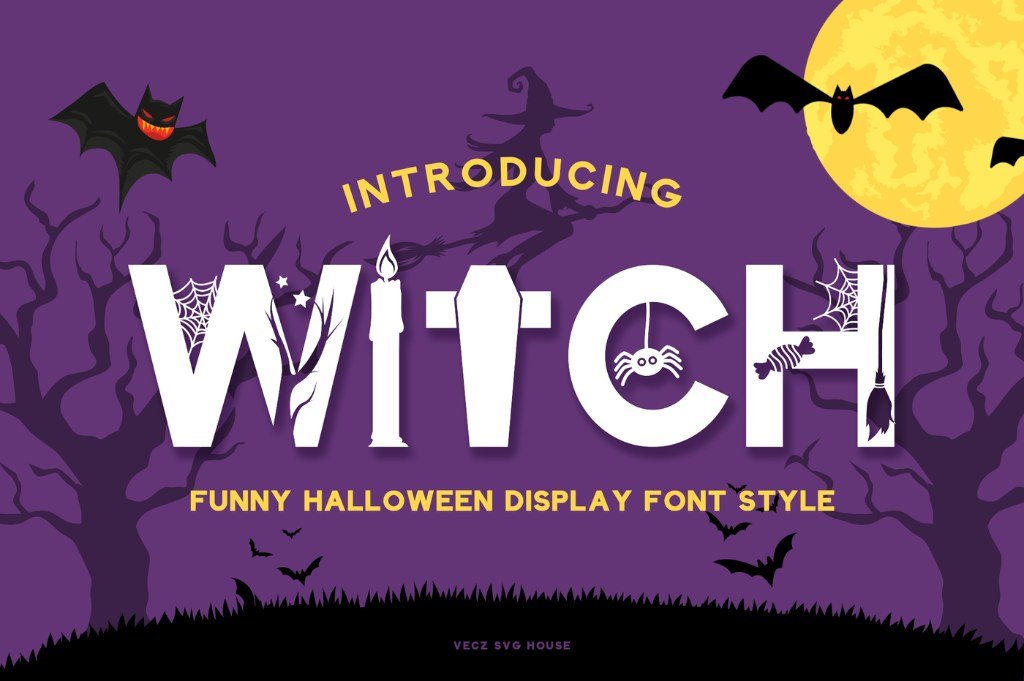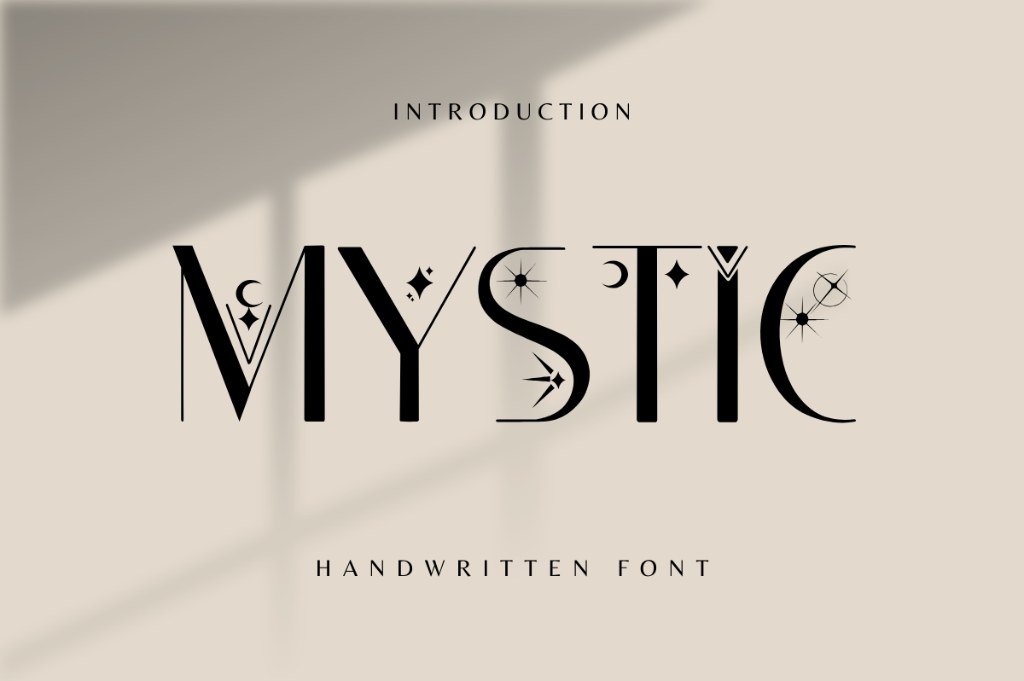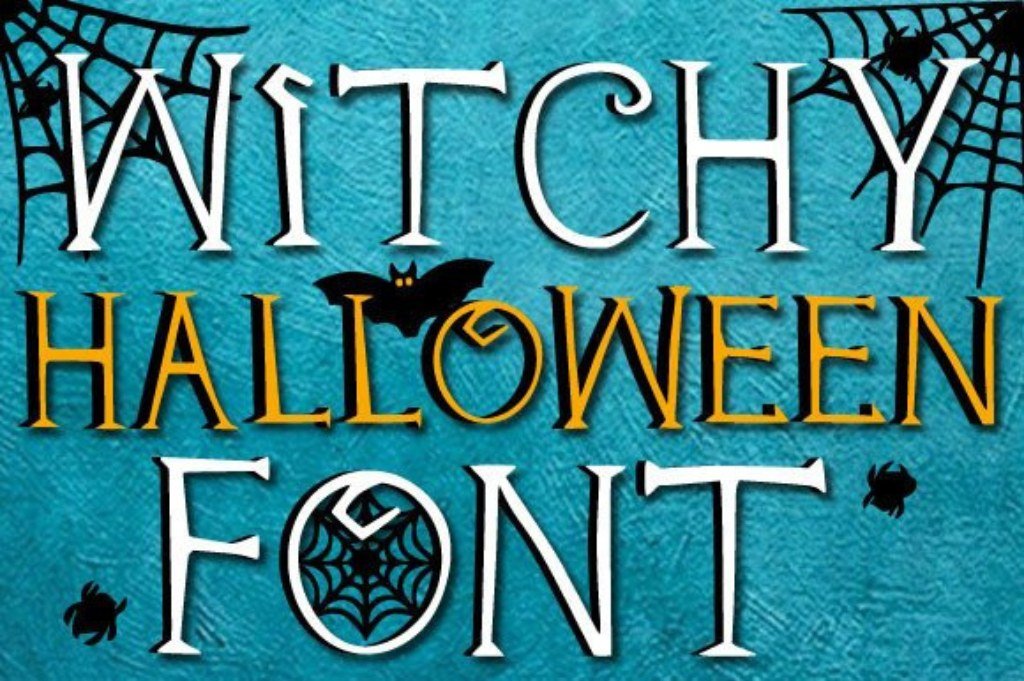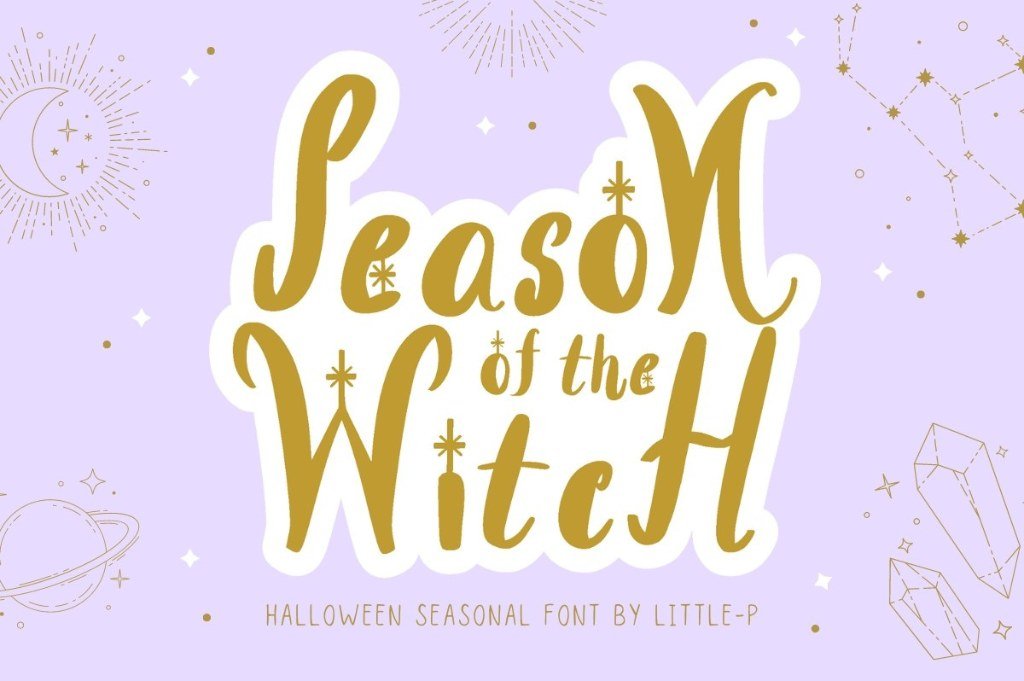
Witchy fonts can instantly give a design a magical, mysterious, gothic, celestial, or playfully spooky personality. And the best witch-inspired typefaces are useful for much more than Halloween: they can work beautifully on Cricut shirts, tarot cards, potion labels, candles, invitations, book covers, stickers, signs, and mystical branding.
For this collection, we selected 21 of the best witchy fonts across spooky, cute, gothic, celestial, handwritten, and magical styles. If you want one versatile place to start, Witch Night is our best overall pick. Tarot stands out for celestial designs, while Whitcher is our favorite for a darker gothic look.
Quick Picks: Best Witchy Fonts at a Glance
Six standout choices if you want to jump straight to the strongest styles.
Best Overall: Witch Night — a playful script and dingbat combination for Halloween crafts and Cricut projects.
Best Spooky: Halloween Witch by Mas Anis — a bold vintage-style display font for posters and Halloween graphics.
Best Celestial: Tarot by Nongyao — decorative lettering with stars and moon details for tarot and mystical designs.
Best Cute: Witch by Rasa — quirky, friendly lettering for playful Halloween crafts and shirts.
Best Gothic: Whitcher — dramatic blackletter for spellbooks, dark fantasy, and gothic witch designs.
Best Scary/Horror: Scary Witch by Dreamink (7ntypes) — a bold wavy horror display font for Halloween shirts, posters, and spooky Cricut projects.
21 Best Witchy Fonts for Magical & Halloween Designs
1. Witch Night — Best Overall Witchy Font
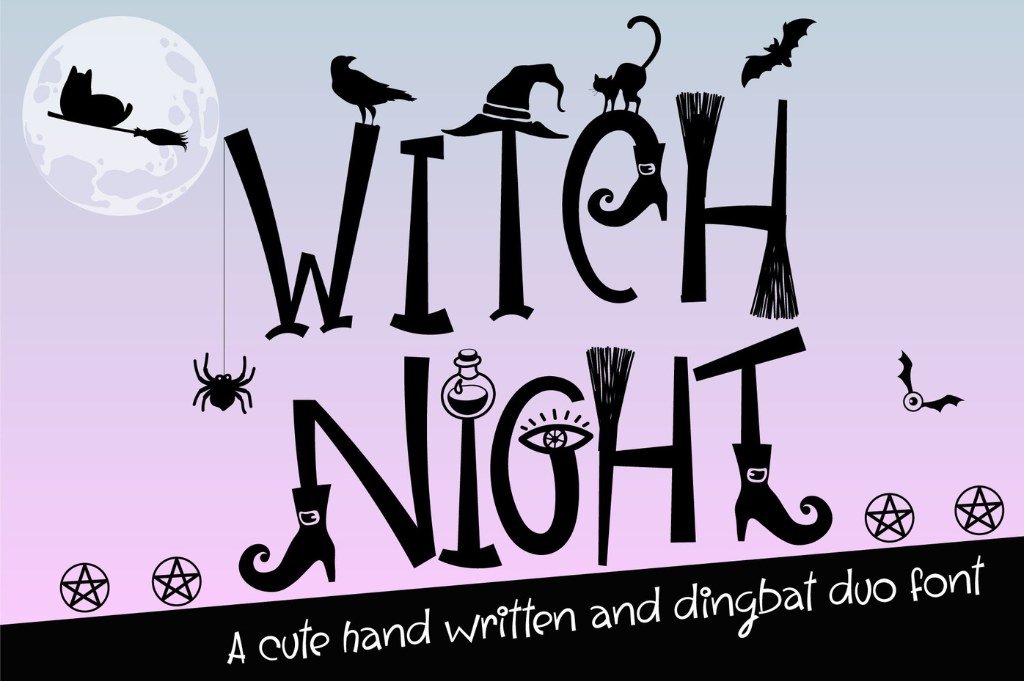
✨ Best for
Cricut shirts, Halloween crafts, mugs, signs, spooky quotes, and playful witch designs.
Witch Night is our best overall witchy font because it gives you more than a single lettering style. The package combines quirky handwritten lettering with matching Halloween-themed decorative elements, making it easy to build a complete design without searching for separate graphics.
Its personality sits comfortably between cute and spooky rather than full horror, which makes it especially useful for family-friendly Halloween projects. Try it on shirts, mugs, tote bags, party signs, stickers, and seasonal Cricut crafts.
2. Halloween Witch by Mas Anis — Best Spooky Witch Font
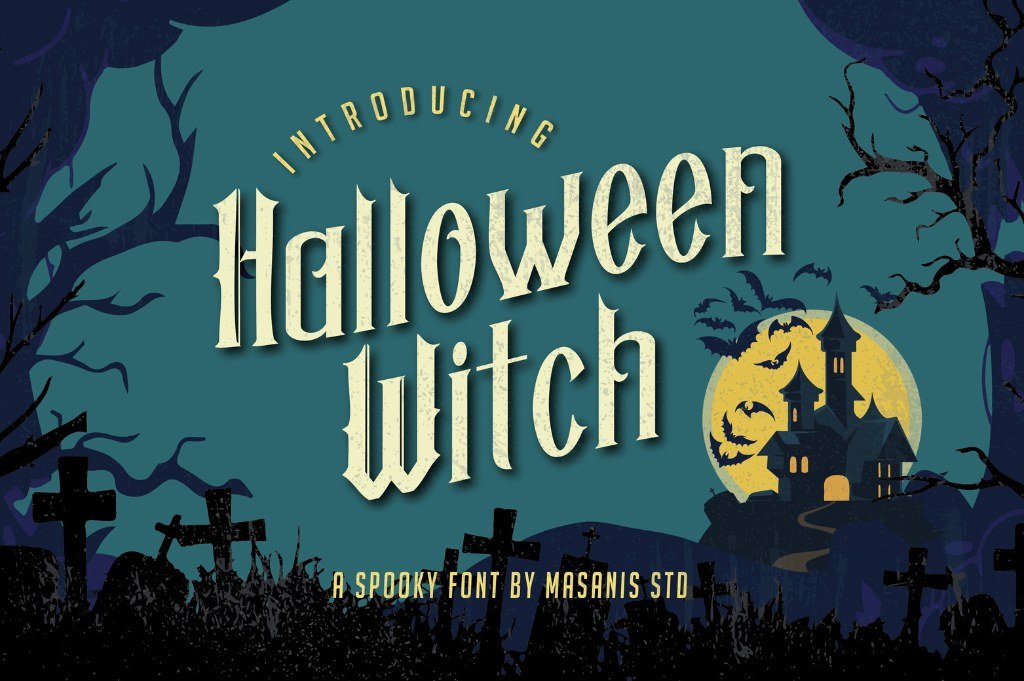
✨ Best for
vintage Halloween posters, invitations, spooky signs, shirts, and seasonal graphics.
Halloween Witch is a stronger choice when your project needs an unmistakably spooky personality. Its dramatic display forms work best at larger sizes, where the letter shapes can become the focal point of the composition.
I would use this one for Halloween party posters, invitation headlines, haunted-house signage, shirt designs, or any project where a simple handwritten font would feel too soft. Pair it with a clean sans serif for smaller supporting text.
3. Tarot by Nongyao — Best Celestial Witchy Font
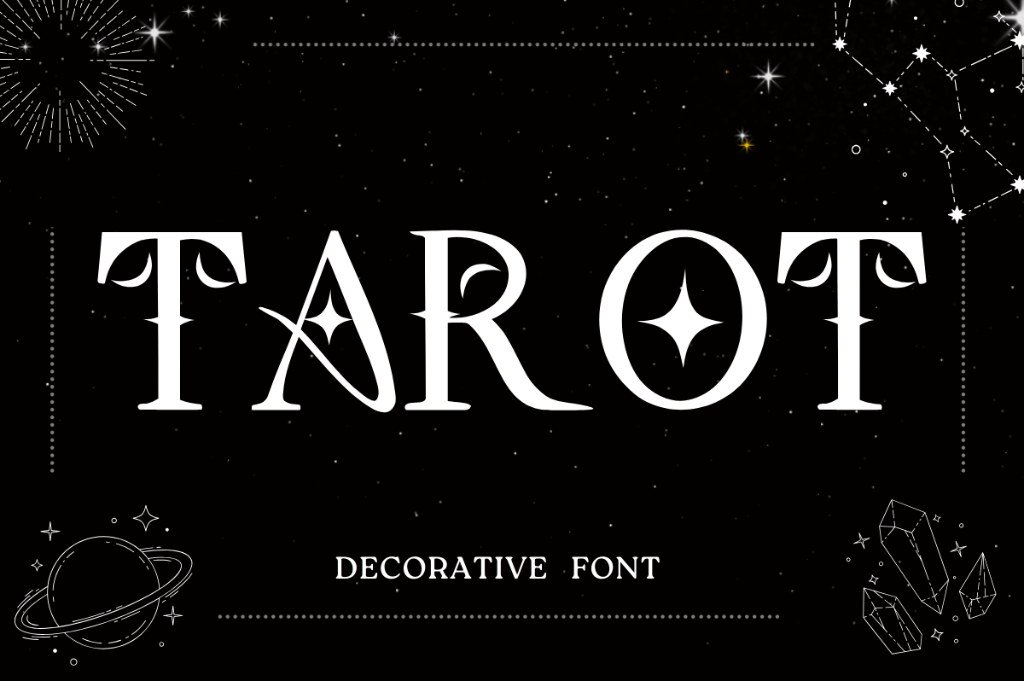
✨ Best for
tarot cards, moon-themed invitations, celestial branding, mystical packaging, and magical Cricut projects.
Tarot is one of the strongest choices in this collection if your idea of “witchy” is more celestial than spooky. Decorative stars and moon-inspired details give the lettering a magical personality without relying on pumpkins, bats, or horror imagery.
That makes Tarot useful well beyond Halloween. It can work beautifully for tarot-inspired artwork, astrology graphics, candle labels, moon-themed branding, spiritual journals, and mystical social media designs.
4. Witch by Rasa — Best Cute Witchy Font
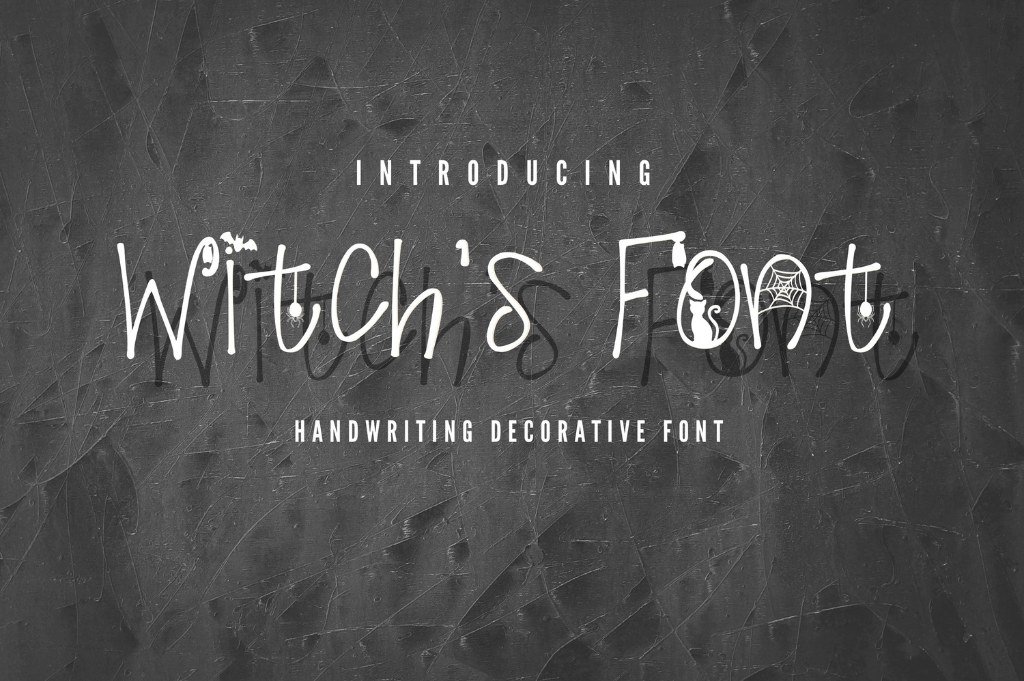
✨ Best for
kids’ Halloween crafts, stickers, cute shirts, party signs, and playful Cricut designs.
Not every witch-inspired project needs to look dark or frightening. Witch by Rasa has a quirky, slightly gloomy personality while still feeling friendly enough for playful Halloween designs.
It is a particularly good choice for children’s party graphics, cute witch shirts, stickers, classroom crafts, treat bags, and lighthearted seasonal quotes. Use simple supporting typography around it so the irregular letter shapes remain easy to read.
5. Whitcher — Best Gothic Witchy Font
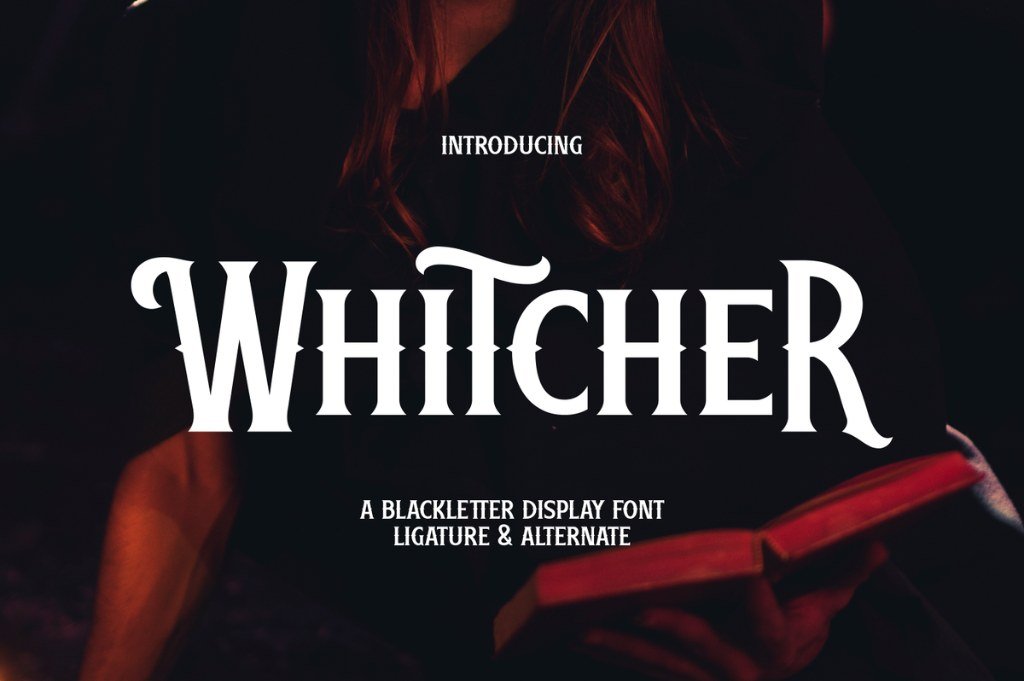
✨ Best for
spellbooks, gothic posters, fantasy covers, game titles, and dark witchcraft branding.
Whitcher is the darkest and most gothic Quick Pick in this list. Its blackletter structure creates an immediate medieval and dark-fantasy mood, making it far more dramatic than a typical seasonal Halloween font.
Use it when you want a spellbook, occult-inspired poster, fantasy cover, potion label, or dark brand identity to feel genuinely atmospheric. Because blackletter can become difficult to read at small sizes, Whitcher works best for short headlines rather than body copy.
6. Scary Witch by Dreamink (7ntypes) — Best Scary Witch Font
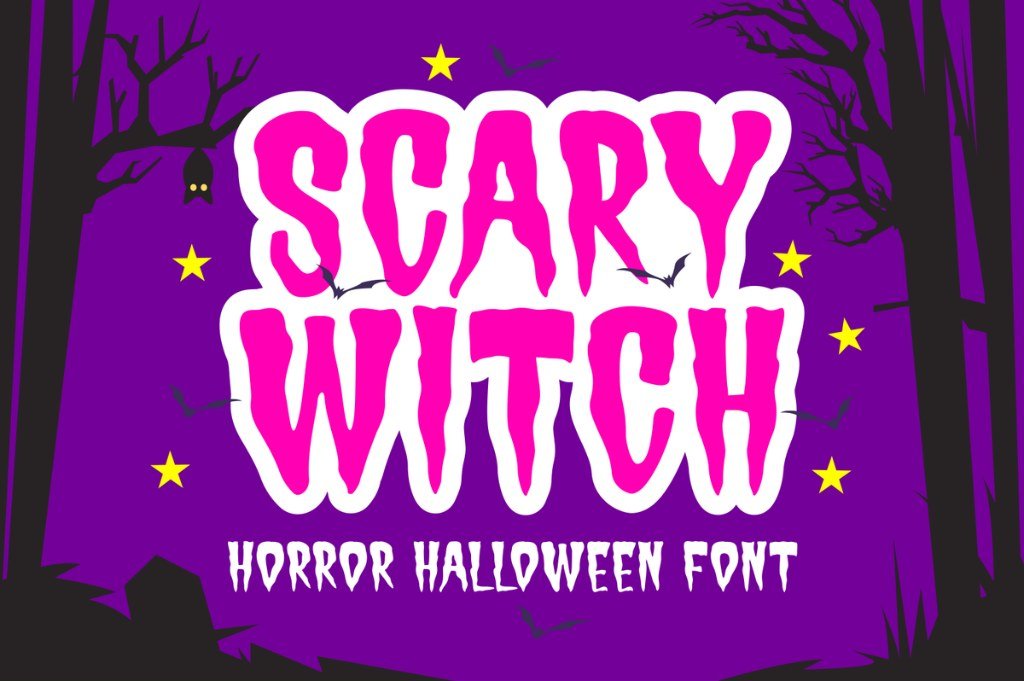
Final Thoughts
The best witchy font depends on the mood you want to create. Witch Night is our favorite all-around option for playful Halloween and Cricut designs, Whitcher is the strongest choice for dark gothic projects, and Tarot is ideal when you want celestial magic instead of traditional spooky imagery.